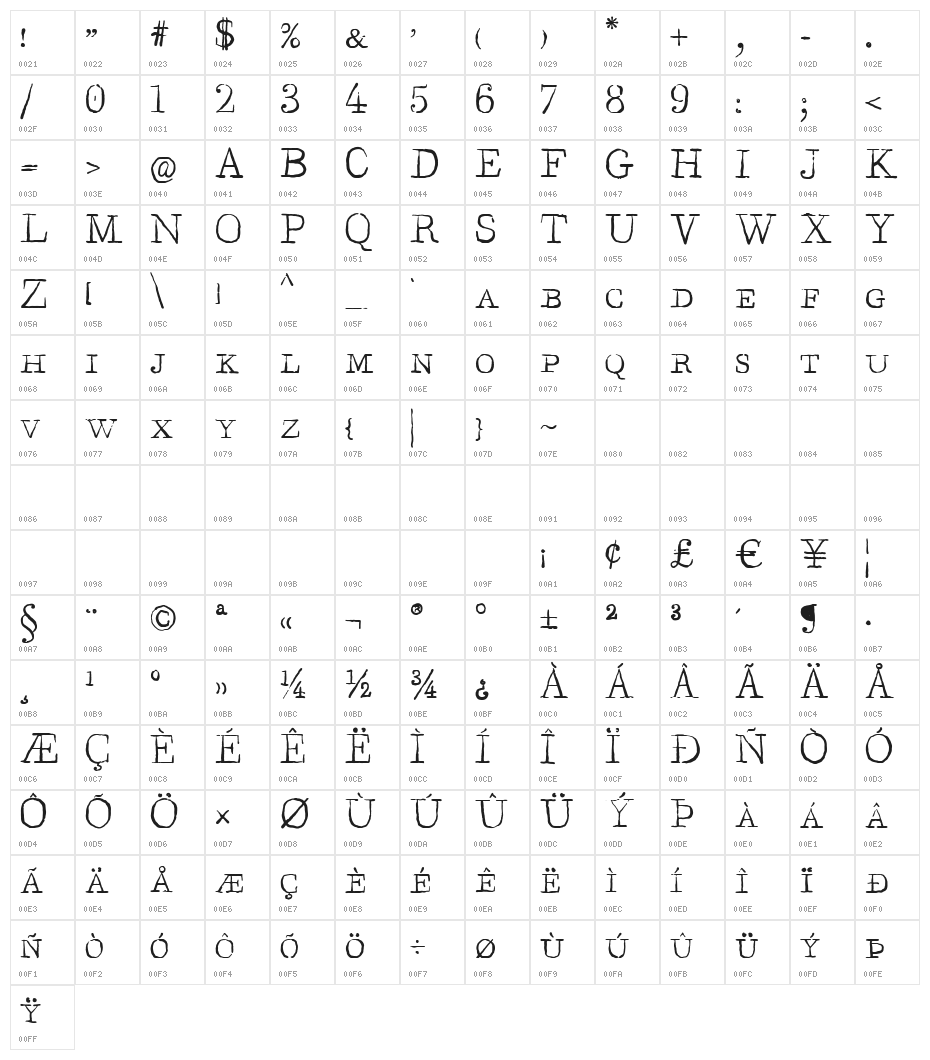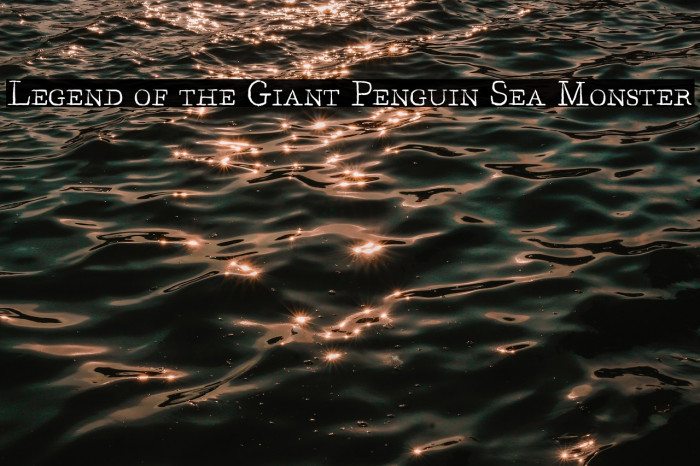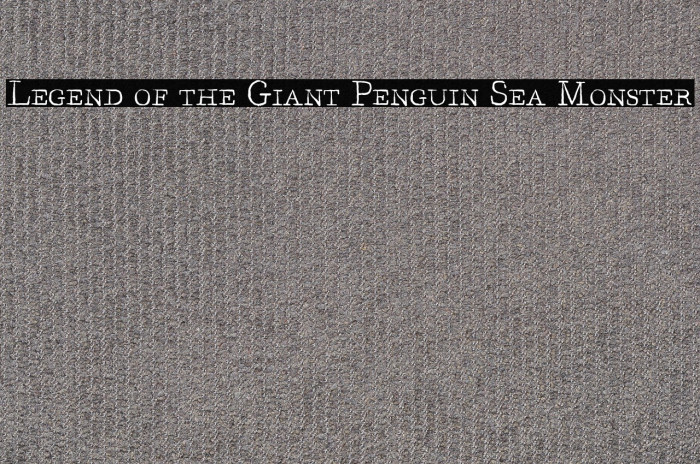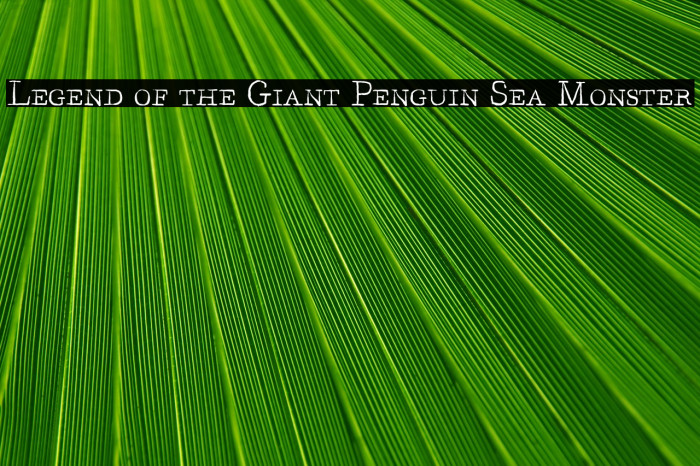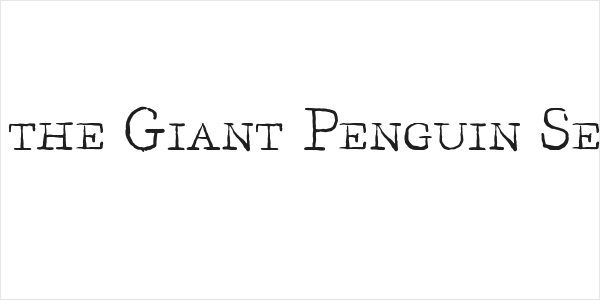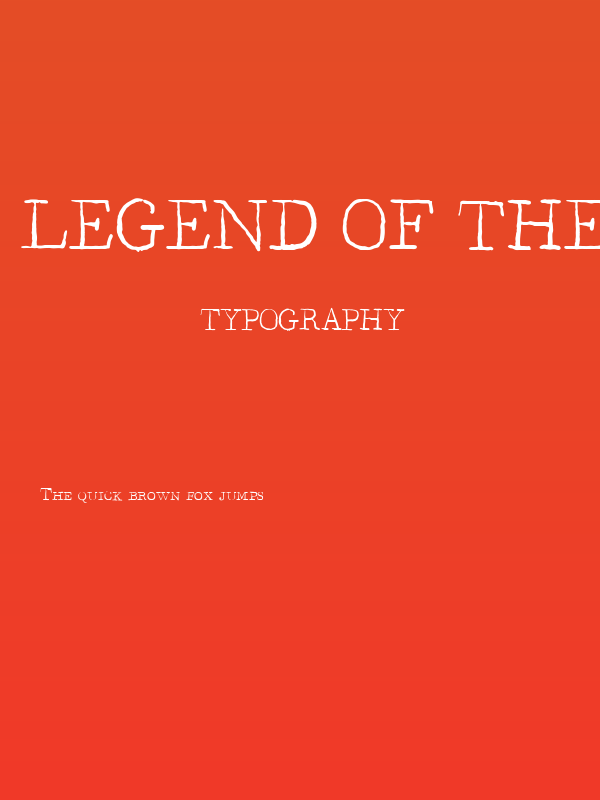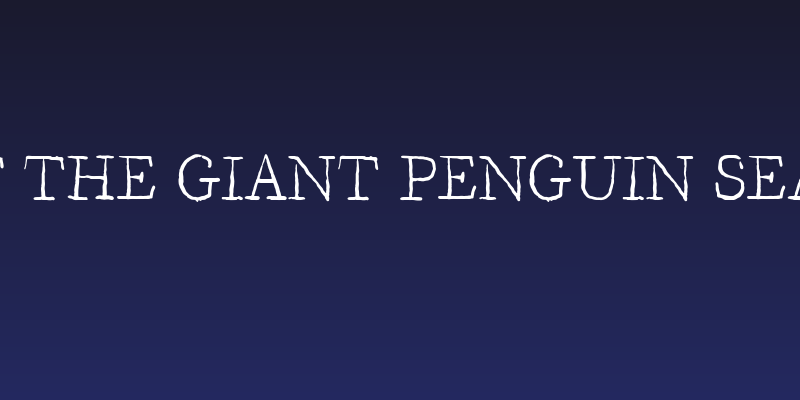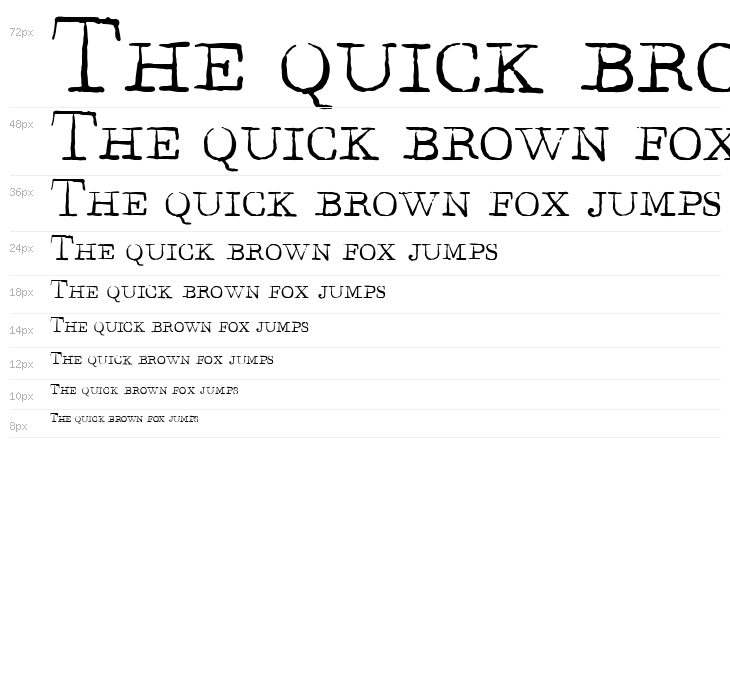
Legend of the Giant Penguin Sea Monster Font
Legend of the Giant Penguin Sea Monster Description
This font exhibits a rugged, distressed style with a vintage appeal. The characters have a hand-drawn quality, featuring irregular edges and varying stroke thickness that give it a worn, textured appearance. The uppercase and lowercase letters maintain a consistent design, with a slightly condensed form that adds to its unique character. The numerals and special characters follow the same aesthetic, ensuring a cohesive look across all glyphs. This font is ideal for projects that require a rustic or antique feel, such as posters, book covers, or branding for artisanal products.
| Proposed Projects | Ideal for vintage-themed posters, book covers, artisanal product branding, and rustic design projects. |